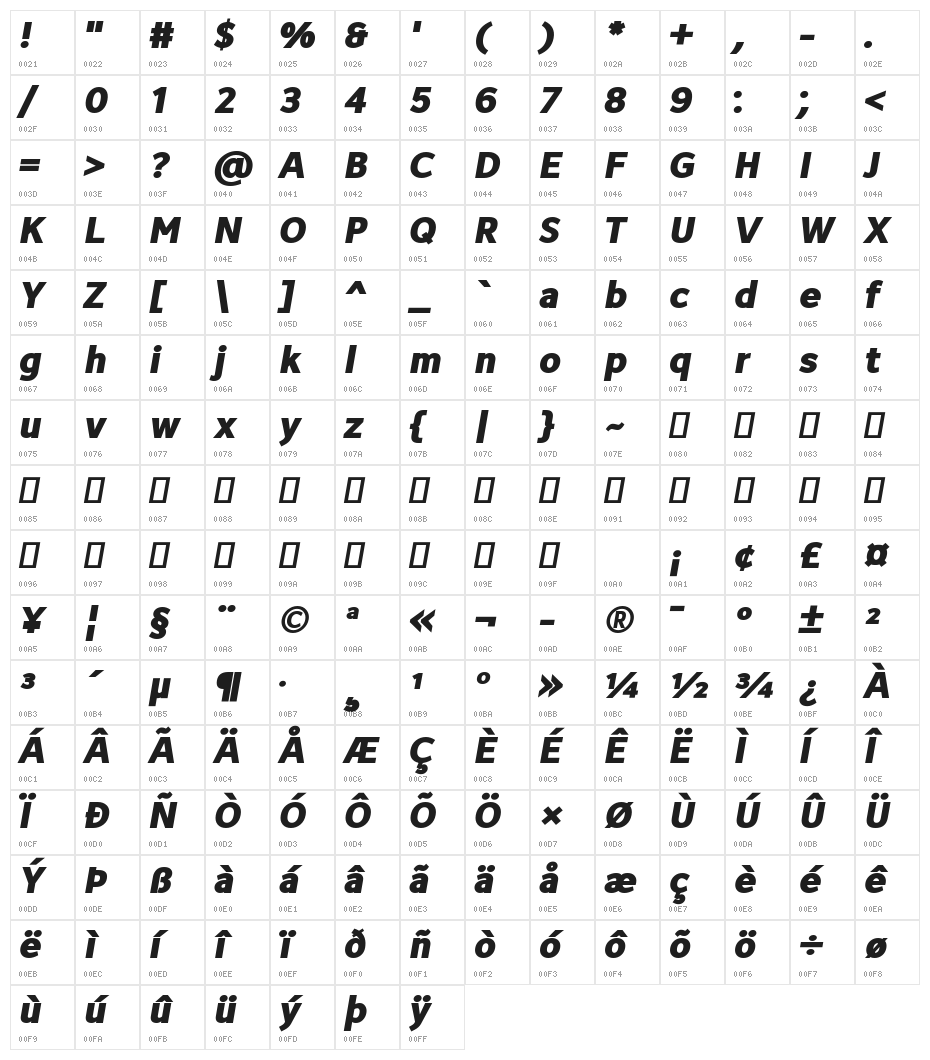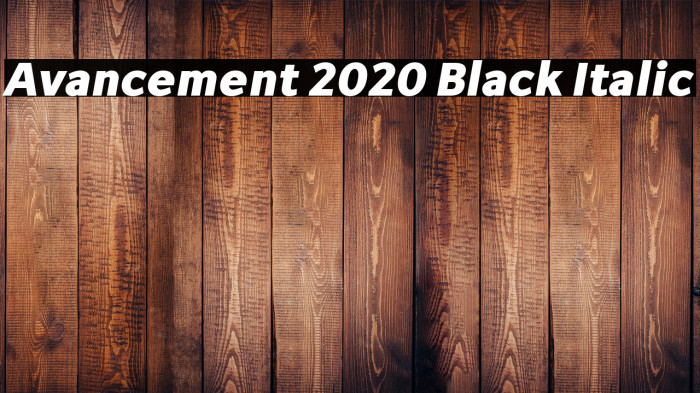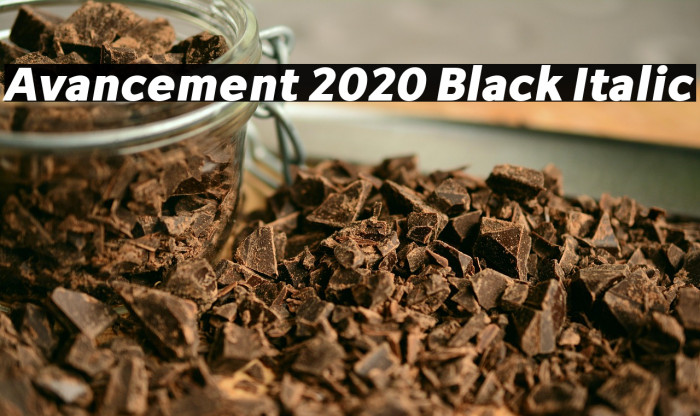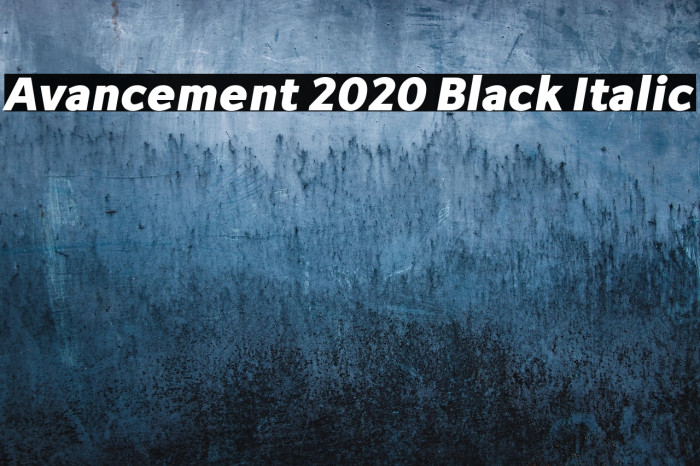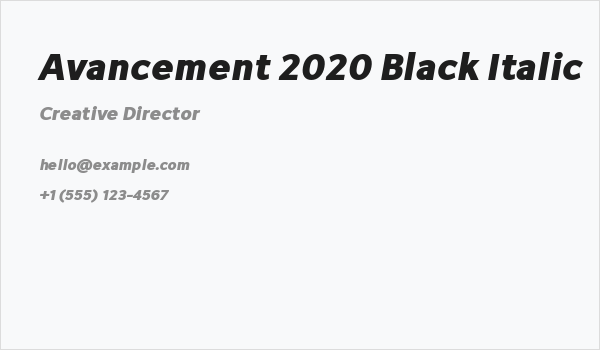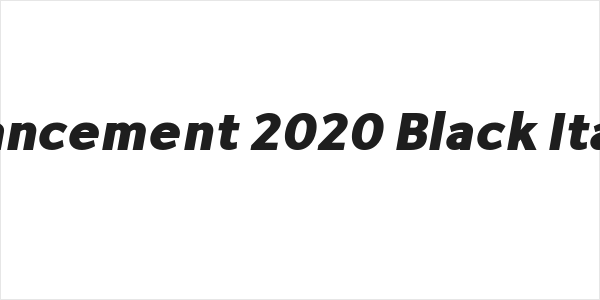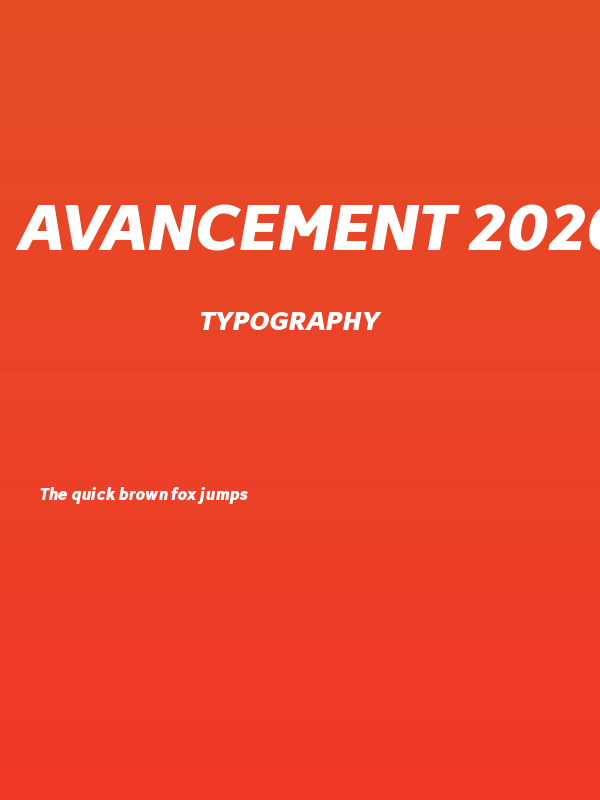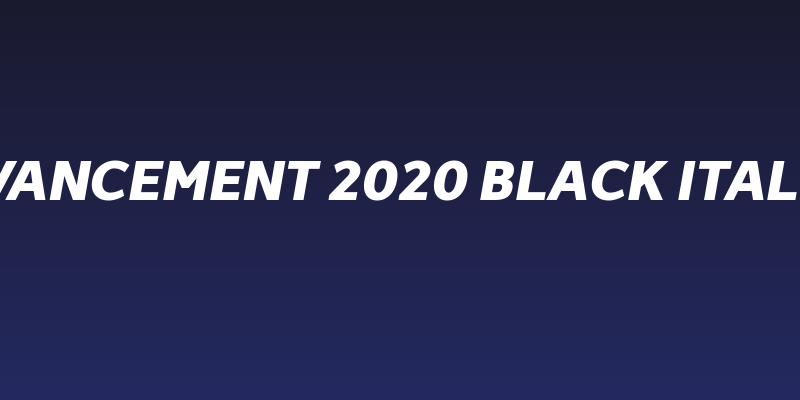
Avancement 2020 Black Italic Font
Avancement 2020 Black Italic Description
This font features a bold and dynamic style with a strong italic slant, giving it a sense of motion and urgency. The characters are thick and robust, providing a powerful visual impact. The uppercase and lowercase letters are well-balanced, maintaining readability while emphasizing a modern aesthetic. The numbers and special characters are consistent with the overall boldness, ensuring uniformity across different uses. This font's design is suitable for making statements and grabbing attention, ideal for headlines and branding.
Use CaseHeadlines, Logos, Advertising
Proposed ProjectsIdeal for headlines, branding, advertising, and any design requiring a strong visual impact.